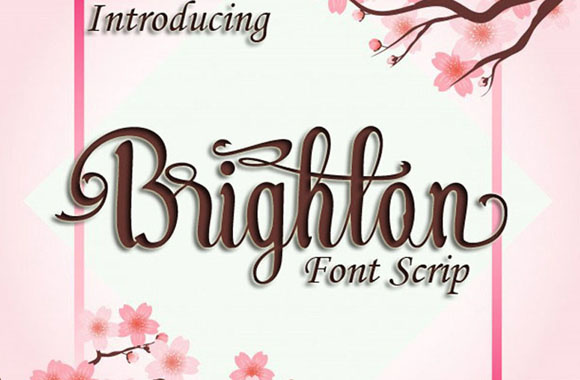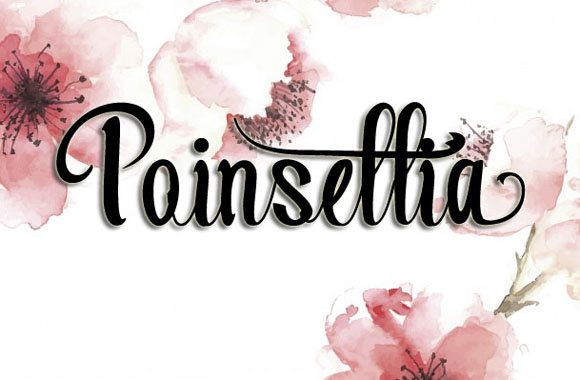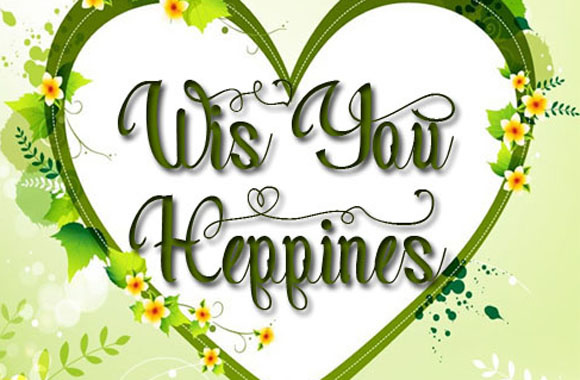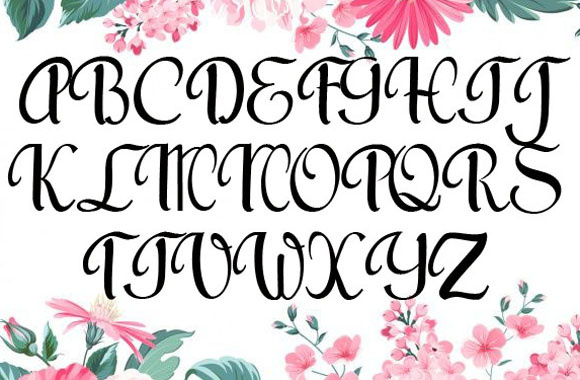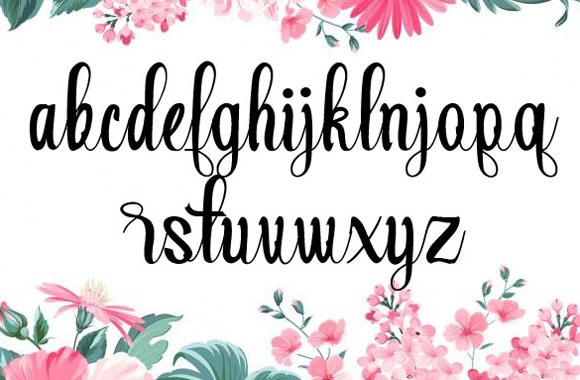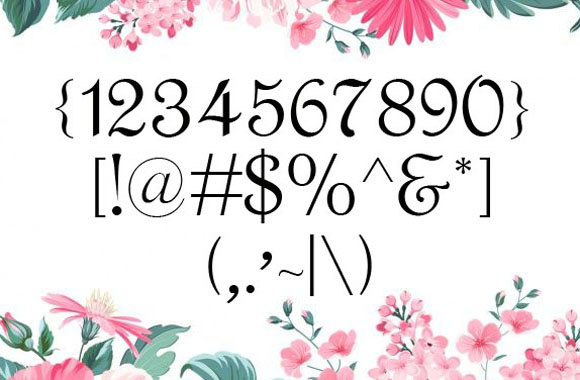
HomeScript FontsBrighton Font Script Fonts Brighton Font FacebookXPinterestWhatsApp Brighton Font Poster 2 Brighton Font Poster 3 Brighton Font Poster 4 Brighton Font Poster 5 Brighton Font Poster 6 About Brighton Font The Brighton is a calligraphy script with a modern and classical handwriting feel. DOWNLOAD ON CREATIVE FABRICAThis font is sold and delivered by Creative Fabrica. Font Canyon may earn a commission if you buy through this link. People also explored Winter is Coming Font Dalgona Font Merry Floral Font Butterfly Circle Monogram Font Signature Holiday Font Heather Red Bella Canvas 3001 Mockup Angelica Font Catholic Girls The Mercury Font 344 0 TagsBrighton Font Previous articleWelcome to the Jungle FontNext articleNight in Paris Font LEAVE A REPLY Cancel reply Comment: Please enter your comment! Name:* Please enter your name here Email:* You have entered an incorrect email address! Please enter your email address here Website: Save my name, email, and website in this browser for the next time I comment. Personal Use Free Still Time Personal Use Free Read more about this font Makeba Font Personal Use Free Read more about this font Bridgetown Font Personal Use Free Read more about this font Doodle Font Personal Use Free Read more about this font BLOG How to Install and Use Fonts on Windows, macOS, and Web Projects How to Install and Use Fonts on Windows, macOS, and Web Projects Fonts are a crucial part of design and branding. Whether you’re designing a... Fonts That Capture the Spirit of New York City To increase your work productivity, choose the most readable fonts. Using Fonts in Digital Marketing: Tips to Strengthen Your Brand Identity